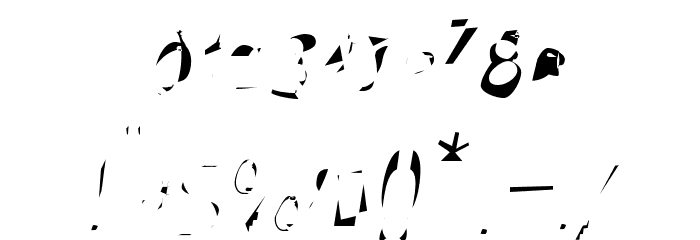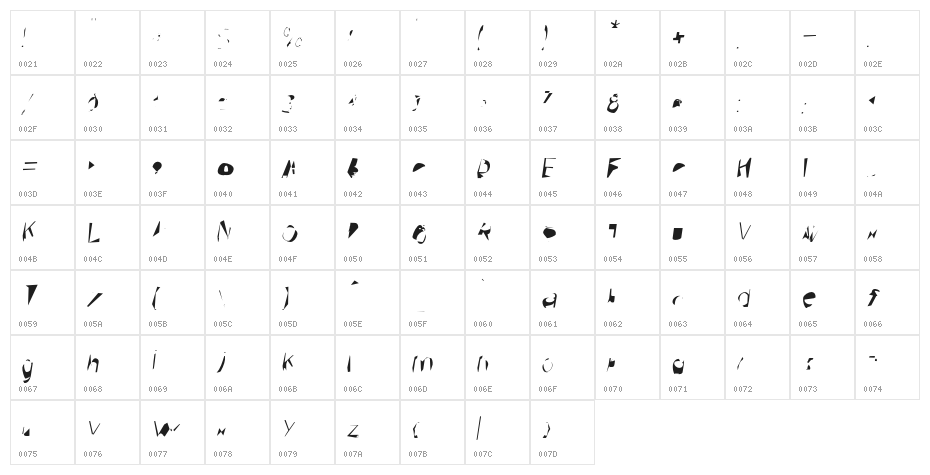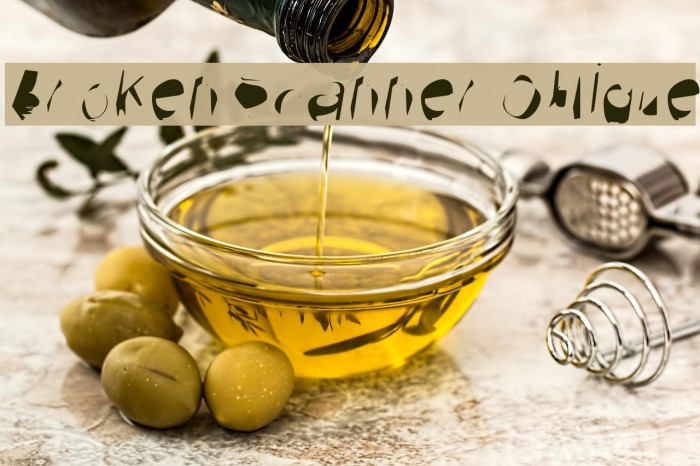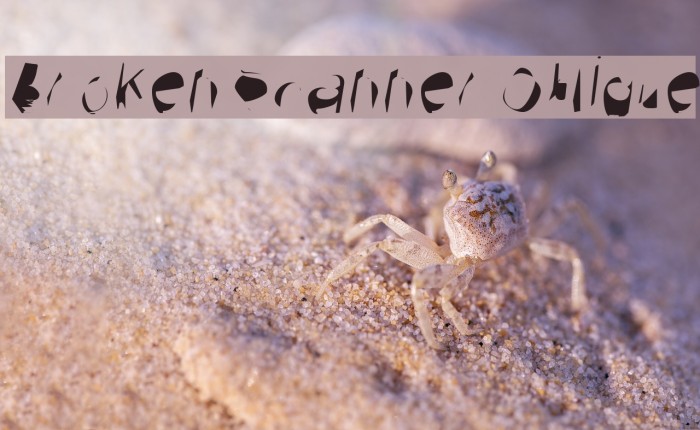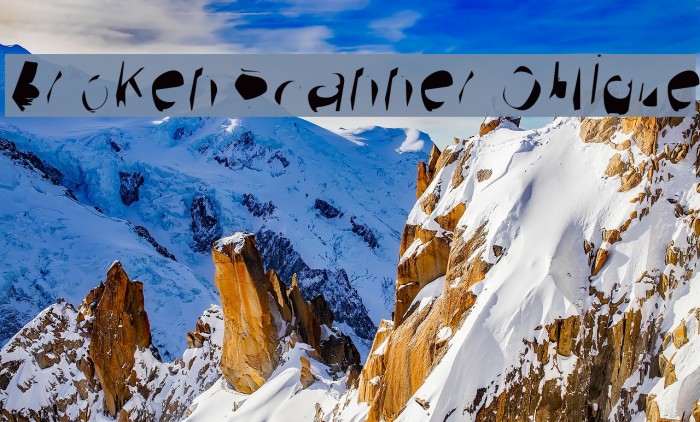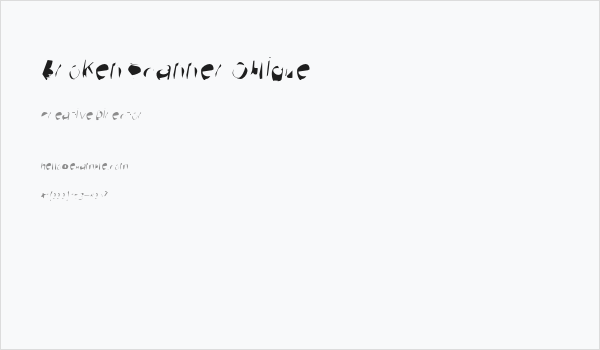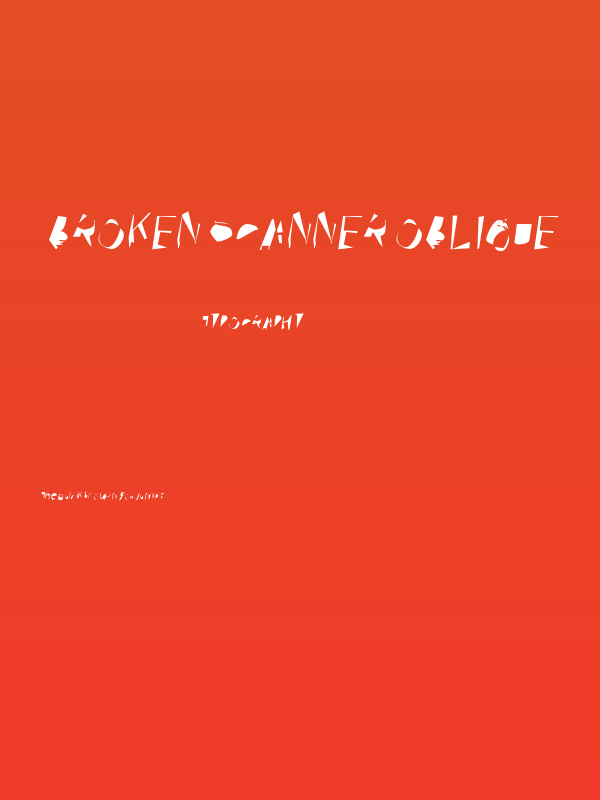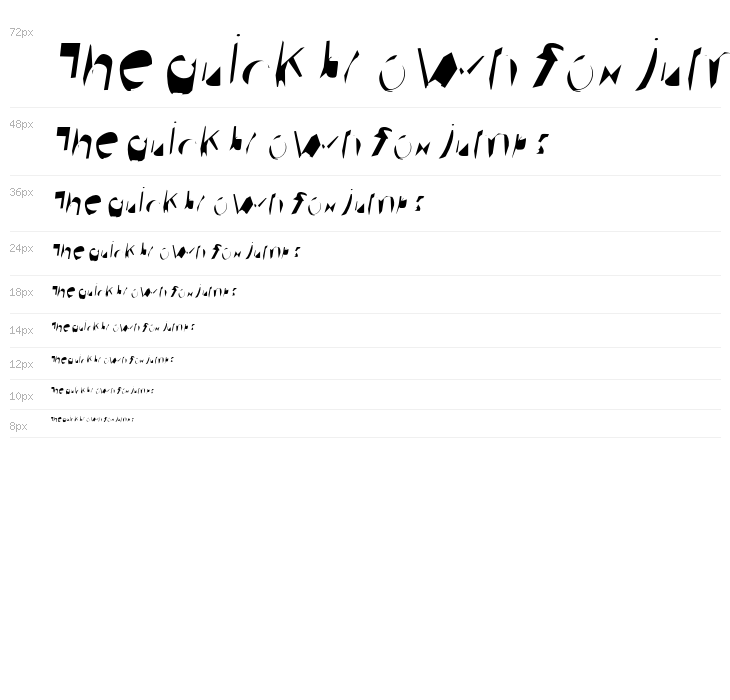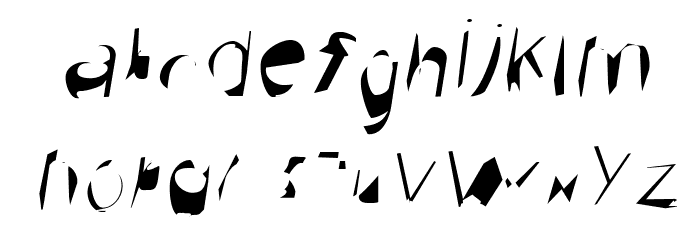
Broken Scanner Oblique Font
Broken Scanner Oblique Description
This font features a highly distorted and fragmented style, giving it an abstract and chaotic appearance. The characters are oblique, with sharp angles and irregular shapes, creating a sense of movement and energy. The strokes are uneven, with some parts appearing thicker and others thinner, contributing to a dynamic and unpredictable look. The font's unique design makes it stand out, but it may be challenging to read in longer texts due to its unconventional form.
| Proposed Projects | Ideal for experimental design projects, album covers, or modern art posters where a bold and unconventional look is desired. |